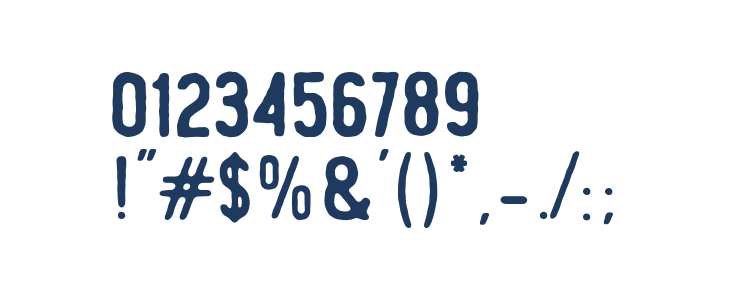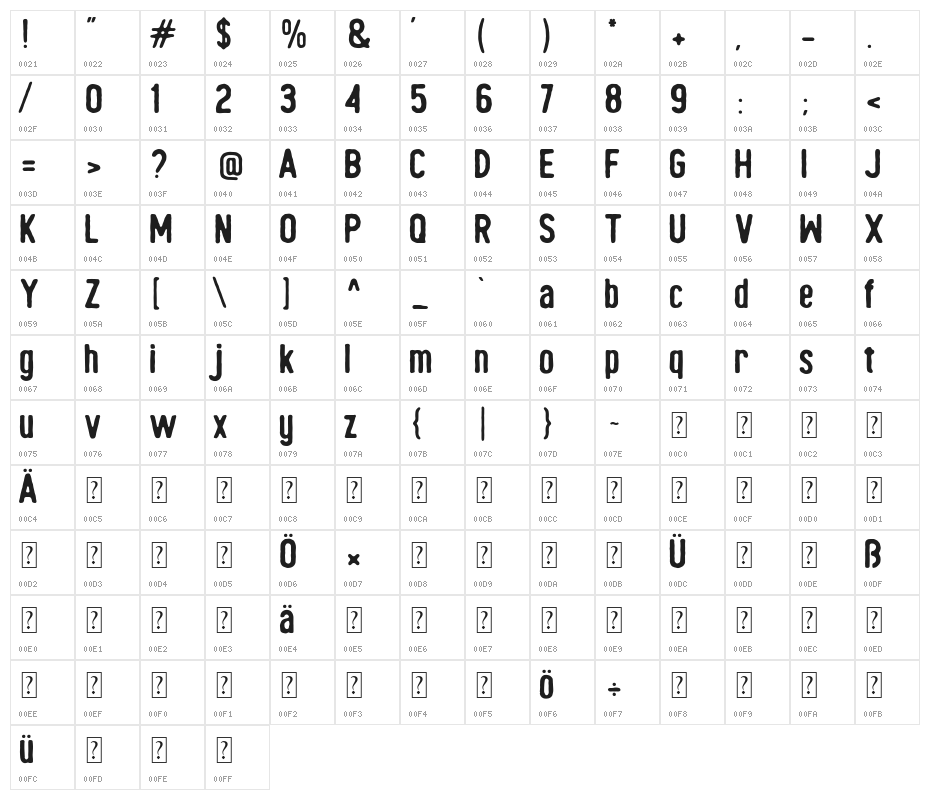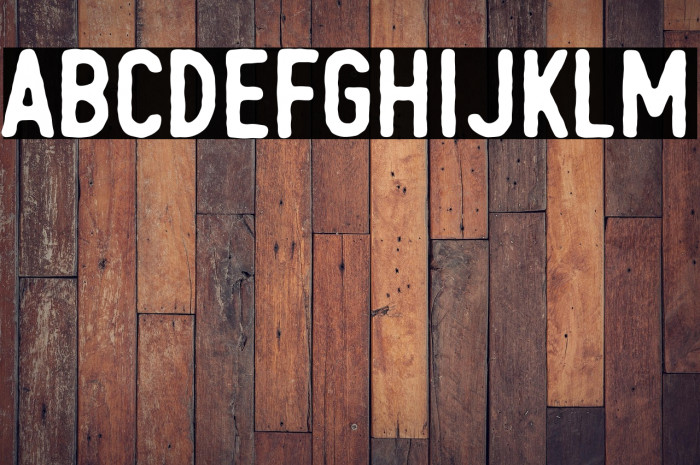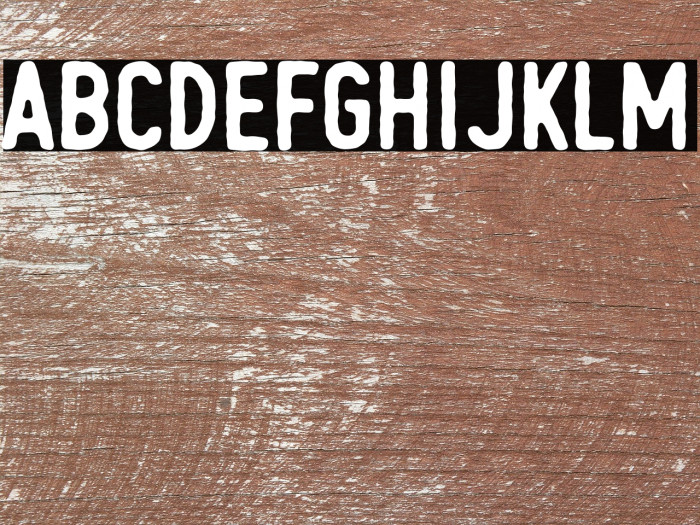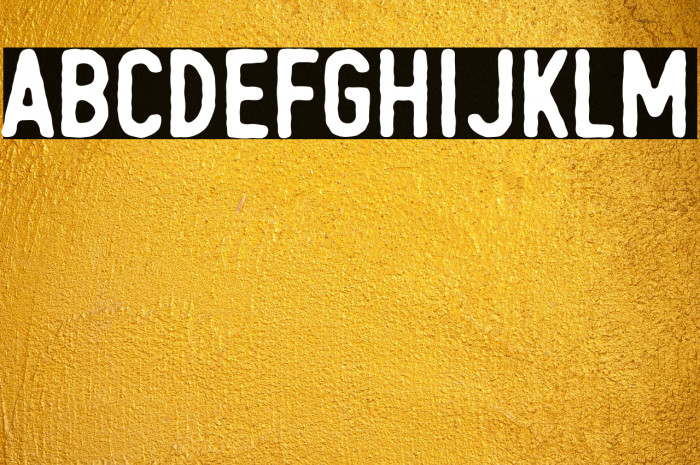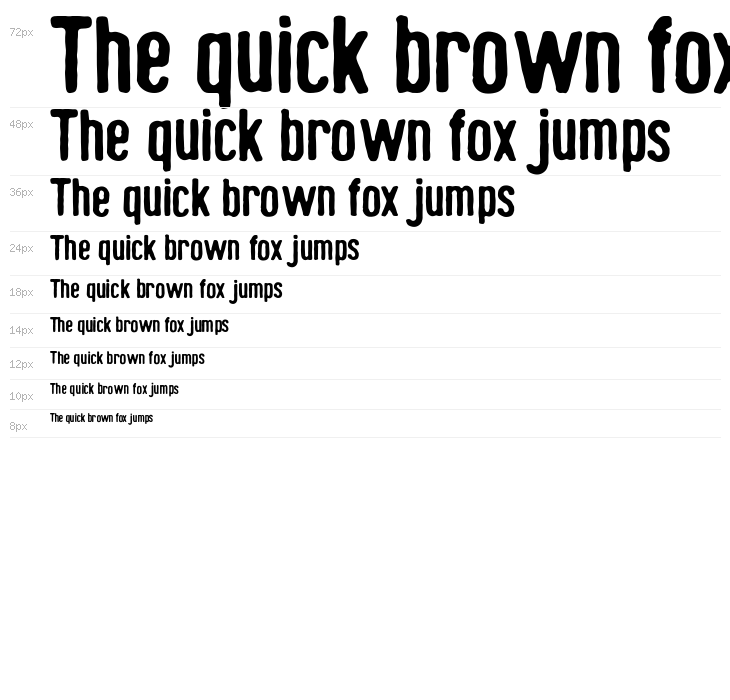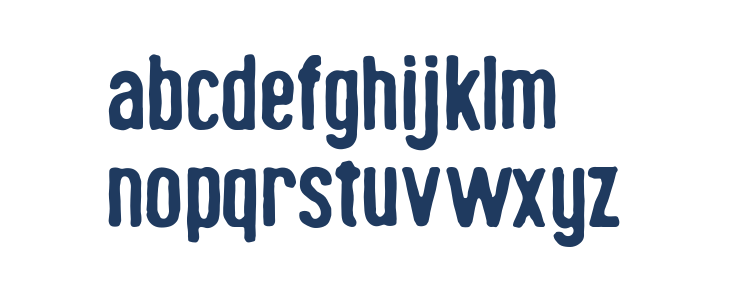
Mohica Demo Font
Mohica Demo Description
This font features a bold, hand-drawn style with a playful and organic appearance. The letters are thick and slightly irregular, giving them a unique, handcrafted feel. The uppercase and lowercase letters maintain a consistent weight, contributing to a cohesive look. Numbers and special characters are included, each with the same bold and slightly rough edges. The overall design is reminiscent of vintage signage or posters, making it suitable for projects that require a touch of nostalgia or a casual, artistic vibe.
| Overall Style | Vintage, Decorative |
| Proposed Projects | Ideal for posters, branding, packaging, and any design that benefits from a handcrafted, vintage touch. |